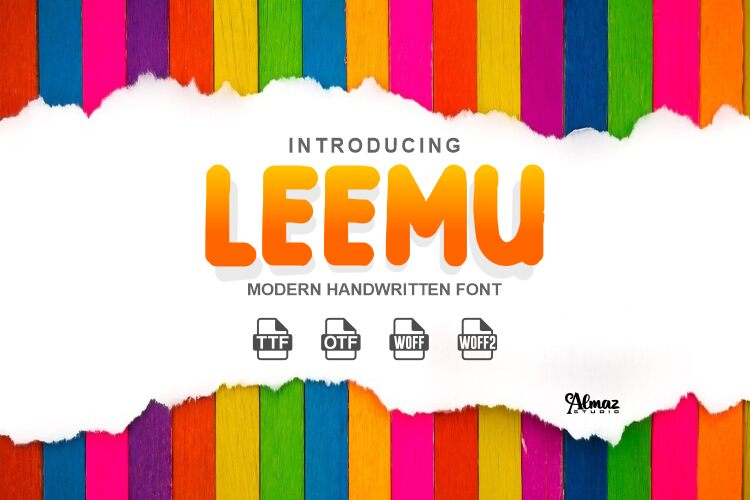
Leemu by Almaz Studio is a bold and playful display font that brings a touch of fun to any project. Its comic style makes it perfect for children's books, posters, and invitations. Its thick weight adds emphasis to headlines, making them pop off the page. This typeface is suitable for a range of creative projects, including social media graphics, packaging design, and even video game titles. Leemu's unique design is sure to catch the eye of anyone who comes across it. Give your project an extra dose of personality with Leemu!
This is a Sans serif basic font. It's a professional version which was complicated hand-made and computer-generated graphics, and various revisions.